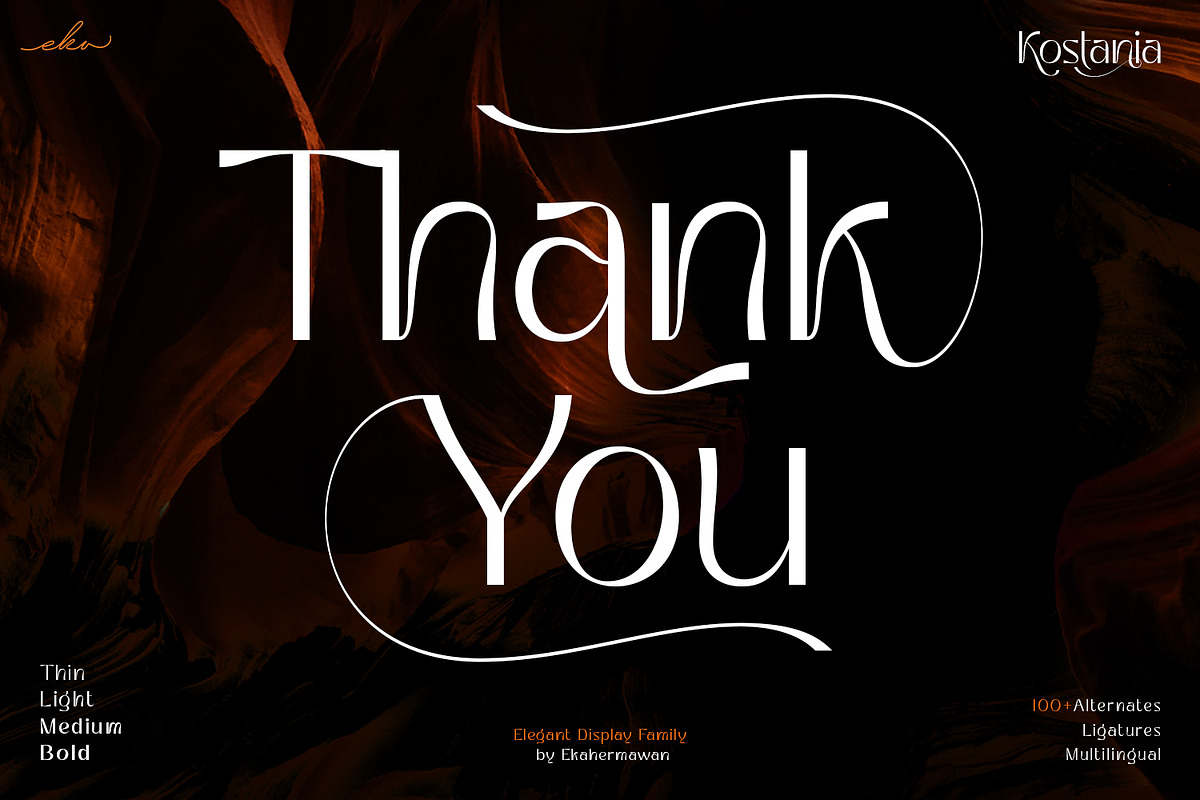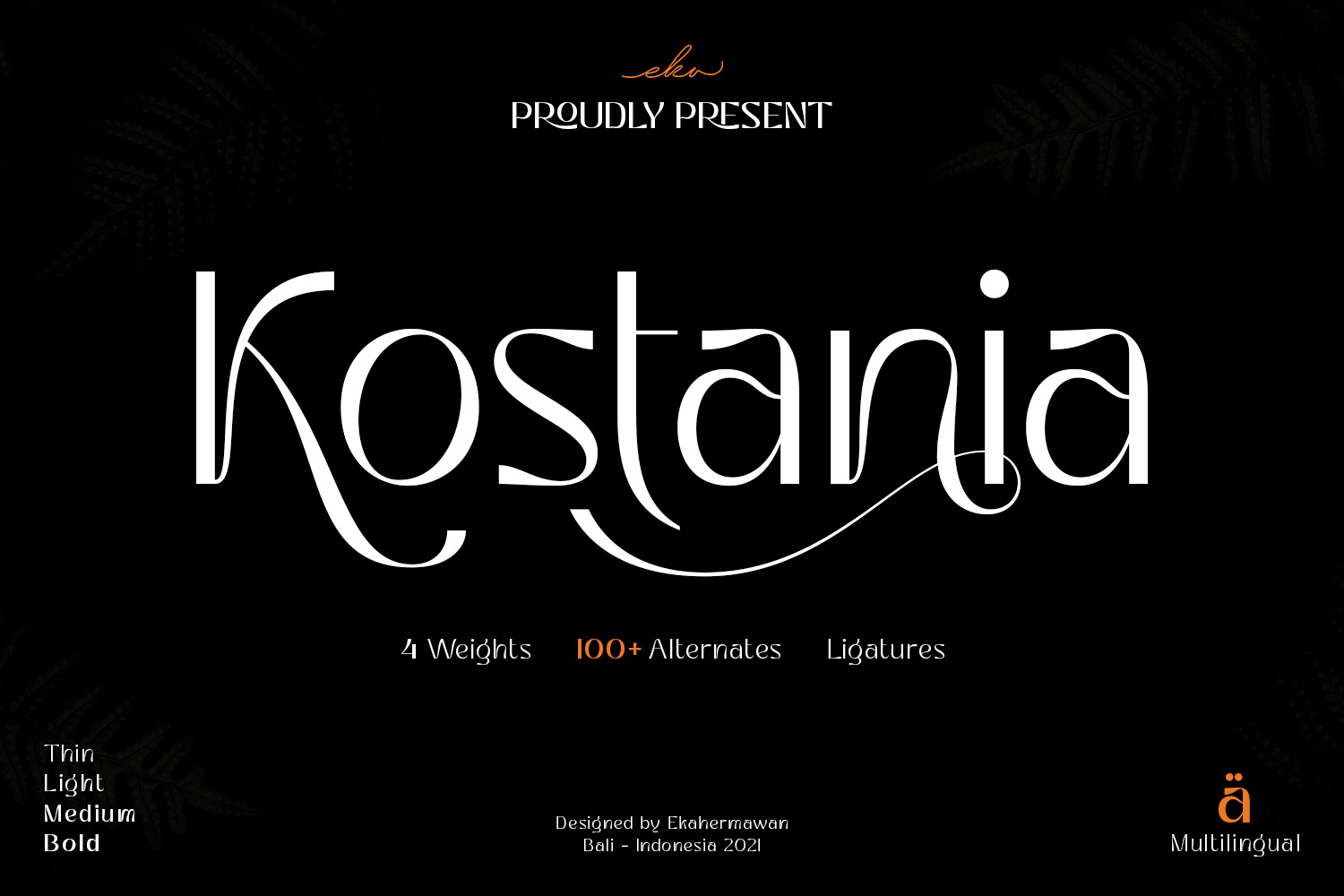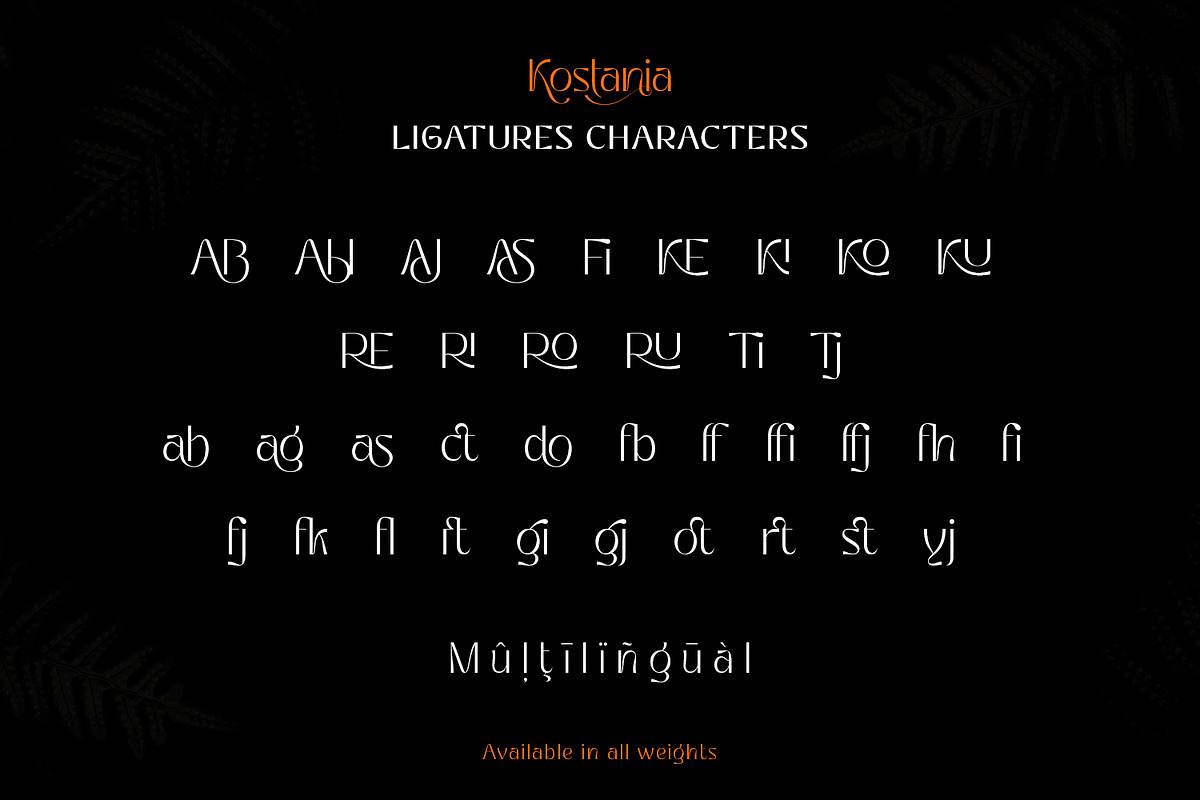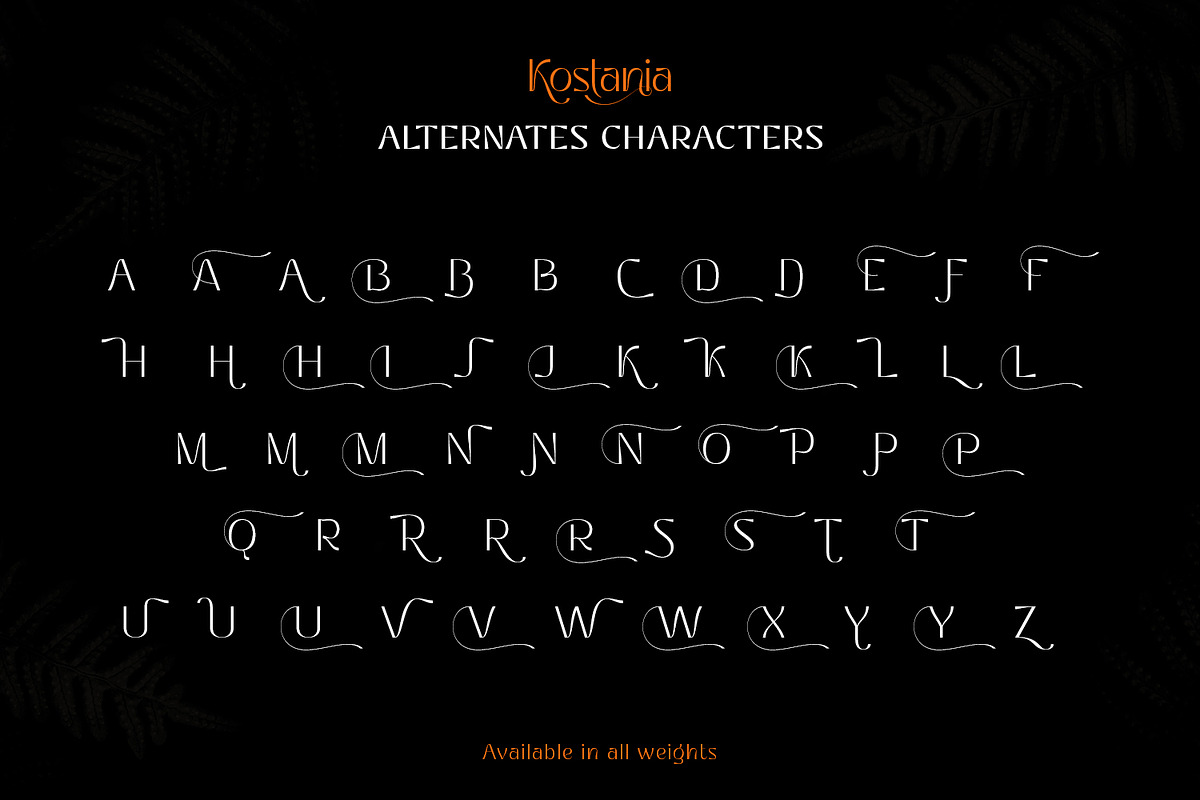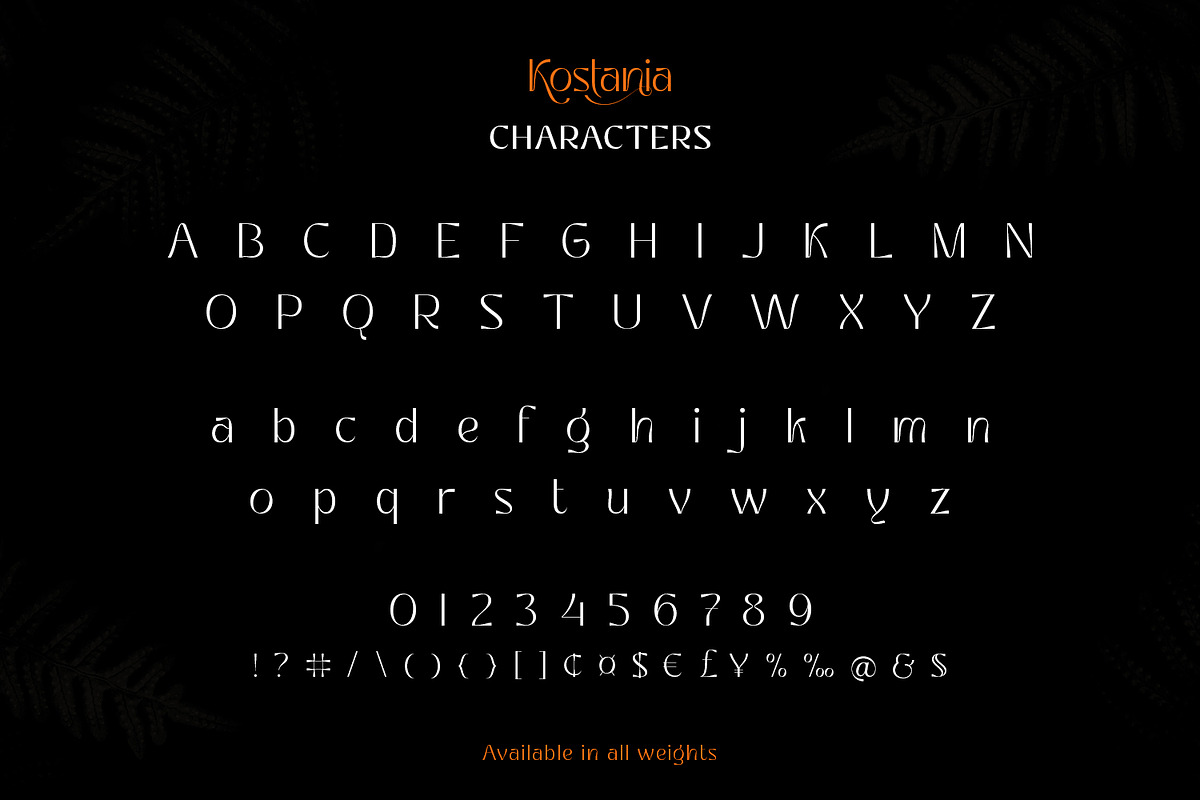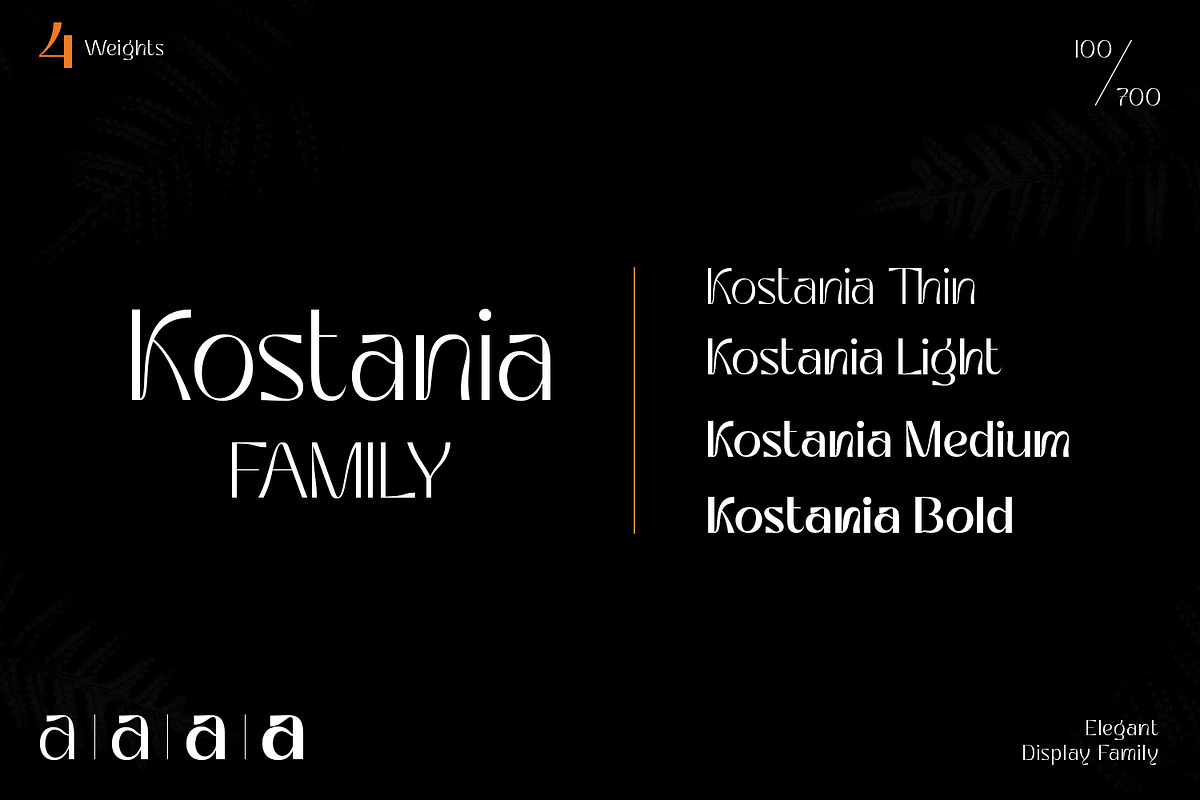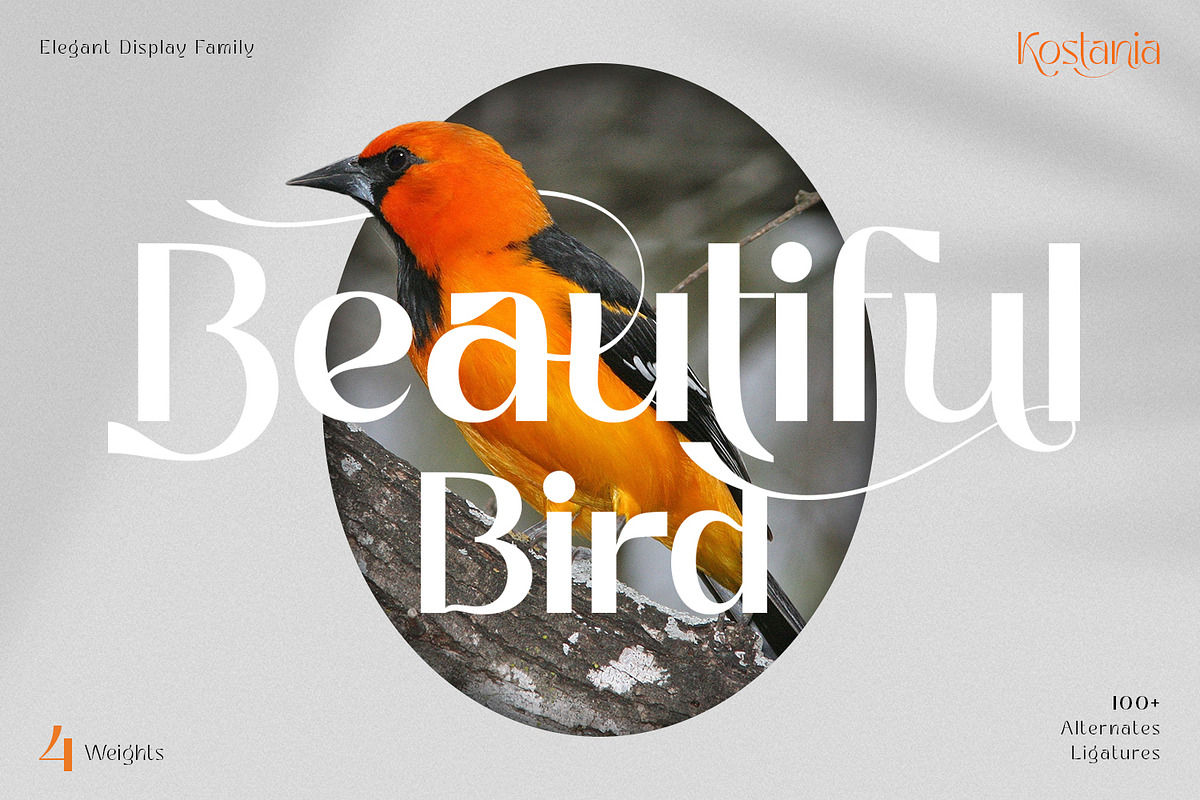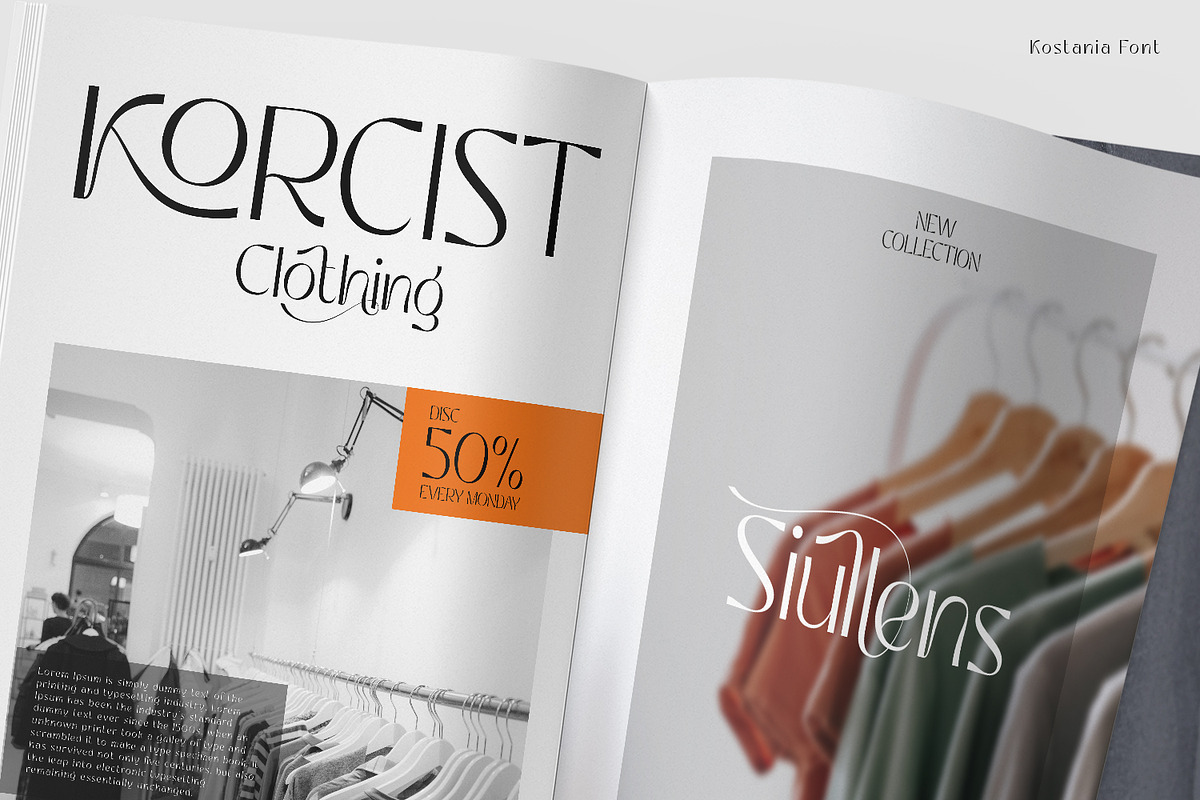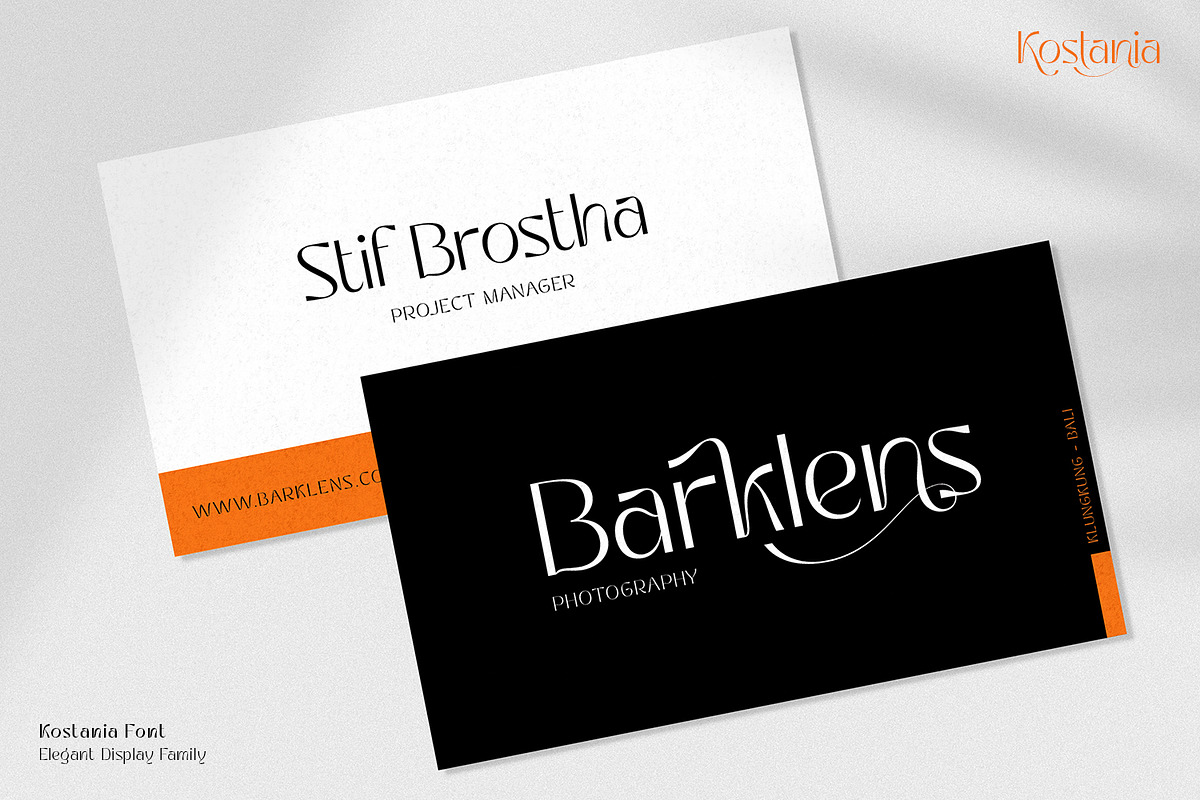
Kostania - Unique Display Font
Kostania is an elegant and unique designed font for any display use with 4 weights from Thin to Bold. Kostania is including a bunch of alternates and ligatures characters that give you a variety of typographic design results. Kostania is a versatile font for many design project such as logo design, branding, poster, magazines, labels, merchandise, invitation, presentation, advertising and so much more!
- Playfull to use (with ligatures and alternates options)